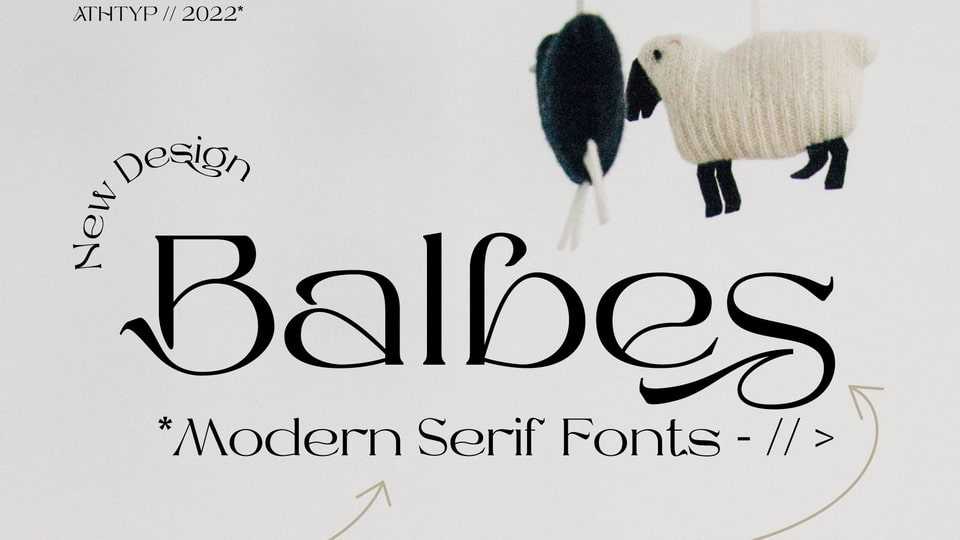
Download Balbes font, a modern serif typeface with multiple shapes and lines. Balbes font is also followed by the addition of swash, many ligatures, and many languages.